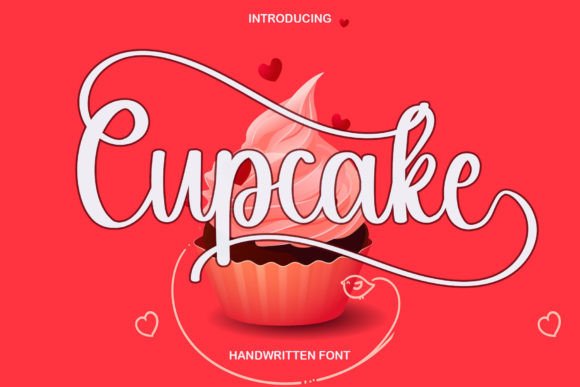
Cupcake Font: Elevate Your Designs with a Touch of Elegance
Are you on the hunt for a font that exudes sophistication and style? Look no further than the Cupcake Font, a trendy handwritten font that brings a contemporary atmosphere and impeccable form to your design projects. Inspired by timeless classic calligraphy, this font is perfect for designers and crafters seeking to add a touch of elegance to their creations.
The Inspiration Behind Cupcake Font
Cupcake Font draws inspiration from traditional calligraphy, with a modern twist. Its unique blend of classic and contemporary elements makes it an ideal choice for designers looking to create stunning visual content. The font’s creator aimed to craft a typeface that would be both stylish and versatile, suitable for a wide range of design applications.
Key Features of Cupcake Font
- Trendy and Handwritten: Cupcake Font boasts a trendy, handwritten aesthetic that adds a personal touch to your designs.
- Contemporary Atmosphere: The font’s modern vibe makes it perfect for designs that require a fresh and current feel.
- Impeccable Form: With its clean lines and precise curves, Cupcake Font showcases impeccable form, ensuring your designs look polished and professional.
- Elegance and Class: This font effortlessly adds elegance and sophistication to any design project, making it ideal for high-end branding, packaging, and more.
Uses of Cupcake Font
Cupcake Font is an incredibly versatile typeface, suitable for various design applications. Here are some ideas to get you started:
- Branding and Logo Design: Create stunning logos and brand identities with Cupcake Font, perfect for businesses seeking a sophisticated image.
- Packaging Design: Elevate your packaging designs with this elegant font, ideal for product labels, tags, and more.
- Stationery and Invitations: Add a touch of class to your stationery, invitations, and greeting cards with Cupcake Font.
- Digital Content: Use Cupcake Font to create engaging digital content, such as social media graphics, blog posts, and website headers.
Why Choose Cupcake Font?
With so many fonts available, why choose Cupcake Font? Here are a few compelling reasons:
- Unique Style: Cupcake Font offers a distinctive, on-trend style that sets it apart from more traditional fonts.
- High Versatility: This font can be used for a wide range of design projects, from branding and packaging to digital content and stationery.
- Easy to Read: Despite its elegant and cursive nature, Cupcake Font remains highly legible, making it perfect for body text and headings.
Tips for Using Cupcake Font Effectively
To get the most out of Cupcake Font, consider the following tips:
- Pair with Neutral Backgrounds: Let Cupcake Font shine by pairing it with neutral backgrounds that won’t compete for attention.
- Experiment with Colors: Try Cupcake Font with different colors to find the perfect combination that suits your design.
- Mix with Other Fonts: Combine Cupcake Font with complementary fonts to create visual interest and hierarchy in your designs.
Cupcake Font is an exceptional choice for designers and crafters seeking to add a touch of elegance and sophistication to their creations. With its trendy, handwritten aesthetic, impeccable form, and versatility, this font is sure to become a staple in your design toolkit. Whether you’re working on branding, packaging, digital content, or stationery, Cupcake Font is the perfect choice for elevating your designs to the next level.